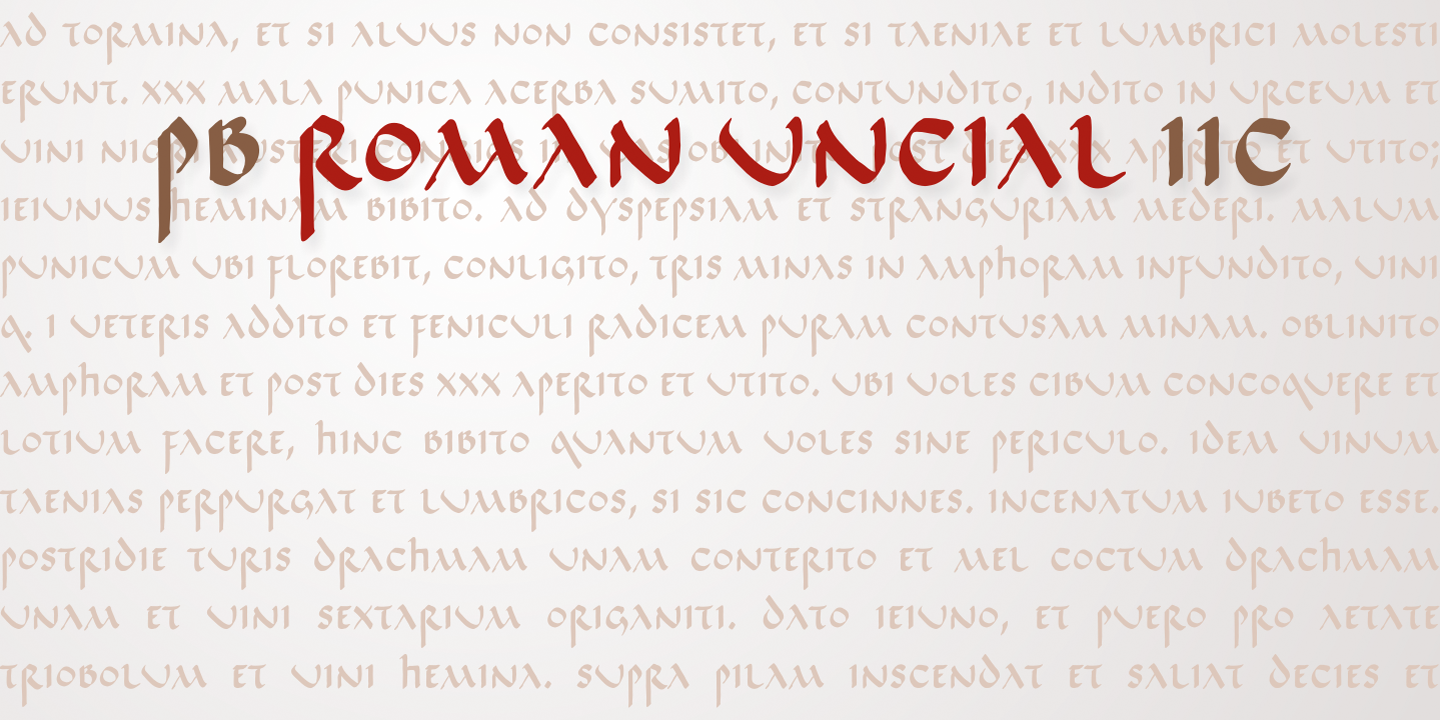
Where to Use PB Roman Uncial IIc Font?
This distinctive uncial font excels in:
• Medieval/Renaissance-themed designs
• Fantasy book covers & game interfaces
• Historical documentary titles
• Church/religious publications
• Celtic-inspired logos & tattoos
• Museum exhibit graphics
Why PB Roman Uncial IIc is Remarkable
This font captures authentic historical character with:
→ True-to-history uncial letterforms
→ Carefully weighted stroke contrast
→ Slightly irregular edges mimicking hand-cut quill work
→ Perfect balance between readability and period accuracy
Complete PB Roman Uncial IIc Features
Includes:
Regular and Bold variants
Special historical ligatures
Alternate character forms
Extended Latin character set
✓ 500+ glyphs including rare medieval characters
✓ OpenType layout features
✓ Excellent display performance